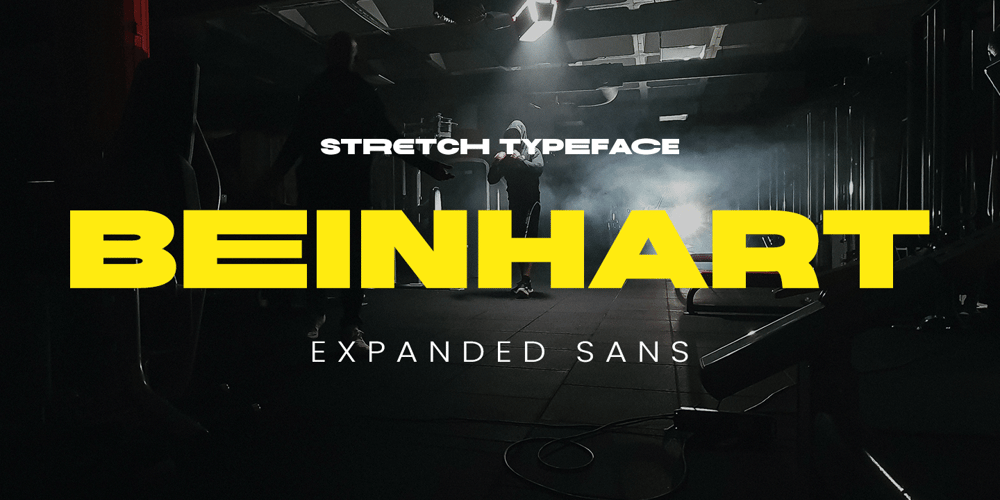
Beinhart
Beinhart font
Beinhart Font Family was designed by Novitasari Romli and published by Novitype. Beinhart contains 1 styles and family package options. Beinhart is an expanded sans serif typeface with a unique width and geometric design that evokes a futuristic-contemporary style. This font features bold shapes, creating a strong impression that resonates with your audience.Beinhart is equipped with alternate characters that are wider than the basic set, allowing you to mix and match for more unique results in your designs. It is perfect for projects that require contemporary vibes, including futuristic, urban, sports, retro, brutalism, and more.